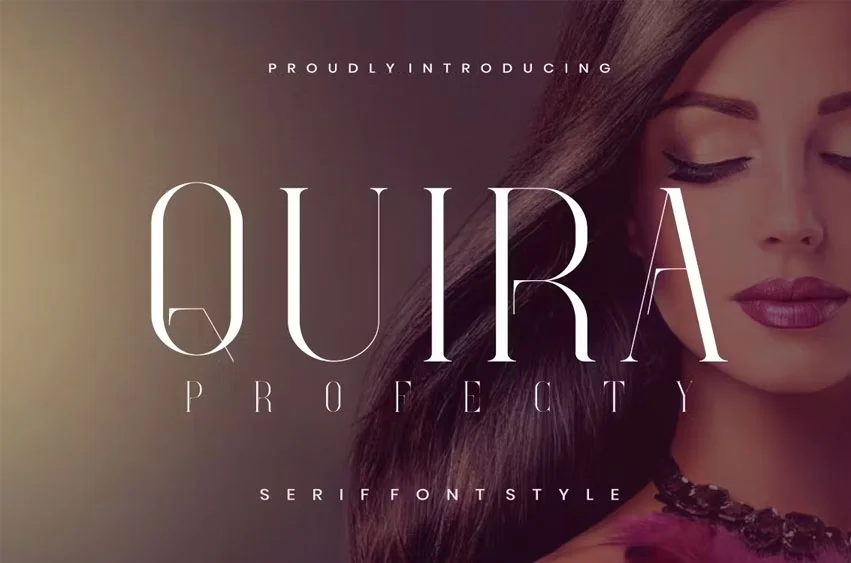
Quira Profecty Font, a beauty and modern for Serif Font. So perfect for you who needs a typeface for logo designs, magazine, social media, brochure, and many more.